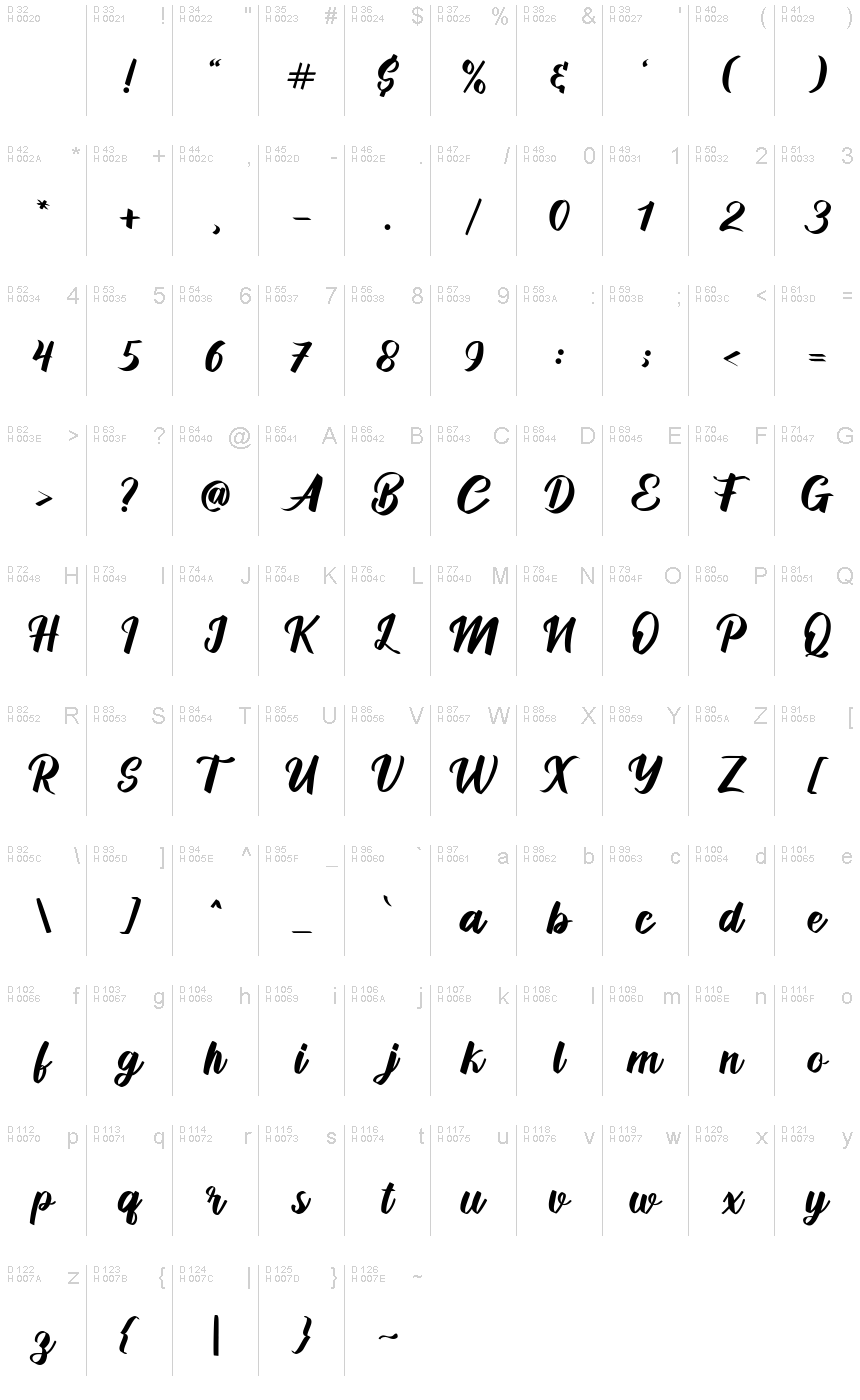
Quester
Quester font by Goodrichees is an elegant conjunction of unforgiving edges and rebellious curves inspired by the casual fast motion of everyday writing. A script with a listless voice, Quester showcases effortless ligatures which naturally draw attention to fluid flowing strokes with minimal flourish. It captures the straightforward motion and timing used in traditional calligraphy so effectively that one can't help but fall in love with the unique - almost naive, it feels - nature. The contrast in the letters spirals upwards like tiny vines to create loops, standing wordlessly proof as a crafted ornament on top of bare canvas.
Perfect for creating eye-catching fashion and lifestyle designs whether you're designing for formal events (event invites from birthday parties to wedding anniversaries), branding (luxurious custom collaterals) or even short-edition publishing (a book or digital diary). Its formal mood elevates everything from home decor quotes and tabletops alike into statement pieces all on their own! From editing your next video project intro complete text layout . Create e-invites straight outta pinterest looks effortlessly tailored using tools at hand: elevate presentation slides exploring motion graphics balanced despite 'soft' narrative approach easy fast paced read!